Can You Feed Your Family as a Metal Logo Designer? Let’s Talk Reality and Passion
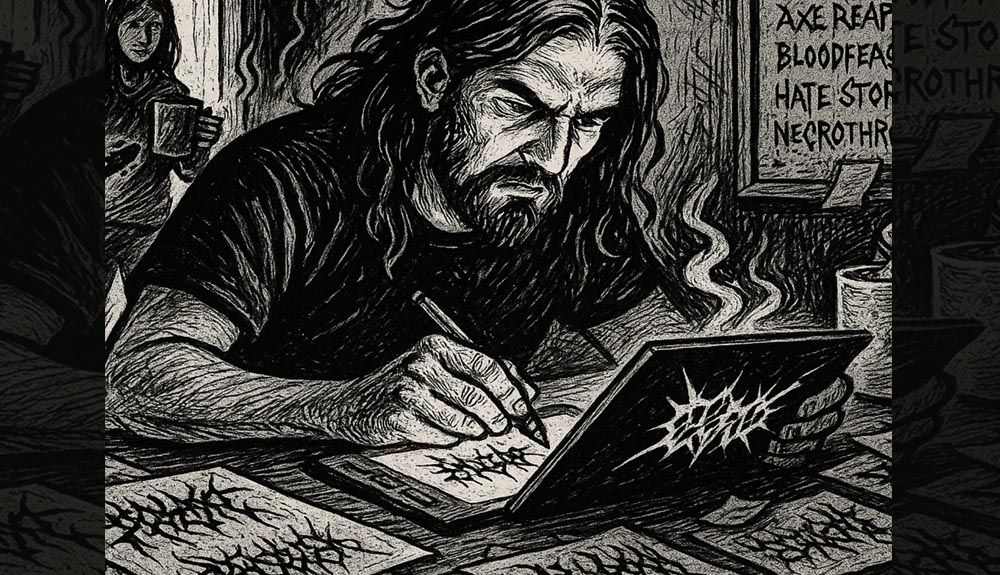
Being a designer sounds cool.
Being a metal logo designer sounds even cooler — dark aesthetics, skulls, thorns, chaos, and clients from underground bands around the world.
But then reality hits:
Can this actually pay the bills?
Can you support your family doing this full-time?
Let’s dive into the real talk: the income, the risks, and the raw beauty of pursuing a niche creative career like designing metal logos.
🎨 The Job Sounds Niche — Because It Is
Let’s face it: you’re not designing startup logos, fast food branding, or fintech identities.
You’re crafting illegible masterpieces for bands who scream for a living and wear corpse paint on stage.
And that’s the beauty — and the challenge.
Pros:
- Unique, expressive work
- Global audience with cult-like loyalty
- You get to create art that feels like music
Cons:
- Smaller market
- Not as many high-budget clients
- Requires strong positioning and outreach
💰 Can You Make a Living? Yes — But Not by Waiting
Here’s the truth:
Being good is not enough.
You also have to be:
- Visible
- Trusted
- Smart about monetization
💼 Possible Income Sources:
- Custom Logo Commissions
- Price ranges: $100–$1000+ depending on detail, reputation, and usage
- Target: bands, labels, festivals
- Pre-made Logo Packs / Templates
- Sell packs of editable logos for small bands
- Platform: Creative Market, Gumroad, Blackmetalfont.com
- Font Licensing
- Create brutal fonts and sell licenses for merch, branding, etc.
- Passive income if done right
- Merchandise Design & Album Art
- Bundle with logos or offer as upsell
- Workshops or Tutorials
- Teach others how to create horror/metal style logos
- Build your name as an expert
- Patreon or Subscription Content
- Share process videos, behind-the-scenes, monthly downloads
🎯 The key is not relying on one stream — but building multiple.
🧠 But What About Consistency?
Many designers struggle with:
- Unstable orders
- Clients who disappear
- Burnout from over-custom work
To fix that:
- Build a portfolio site that feels like your brand
- Offer clear pricing and licensing
- Automate parts of your workflow
- Set boundaries (revision limits, turnaround time)
Also: niche yourself deeply — don’t say “I do design.” Say:
“I create brutal, one-of-a-kind logos for death and black metal bands.”
That confidence brings respect — and respect brings better clients.
👨👩👧👦 Supporting a Family: Is It Possible?
Absolutely.
But you need:
- Discipline – Treat it like a job, not a hobby
- Routine – Set work hours, project deadlines, rest time
- Pricing strategy – Know when to say no, when to upsell
- Support system – From your partner, family, or creative community
And remember:
You’re not selling just a design — you’re selling an identity.
A metal band’s logo will be on their:
- Merch
- Albums
- Social media
- Stage banners
- Tattooed on fans
Charge for what it’s worth.
🖤 Final Words
Yes, being a metal logo designer is niche.
Yes, it’s not as “safe” as corporate work.
But it’s also real, personal, and powerful.
You can support your family with it — if you treat it like a business, build your name, and honor the craft.
Because when your art feeds your soul and your dinner table?
That’s the ultimate riff.